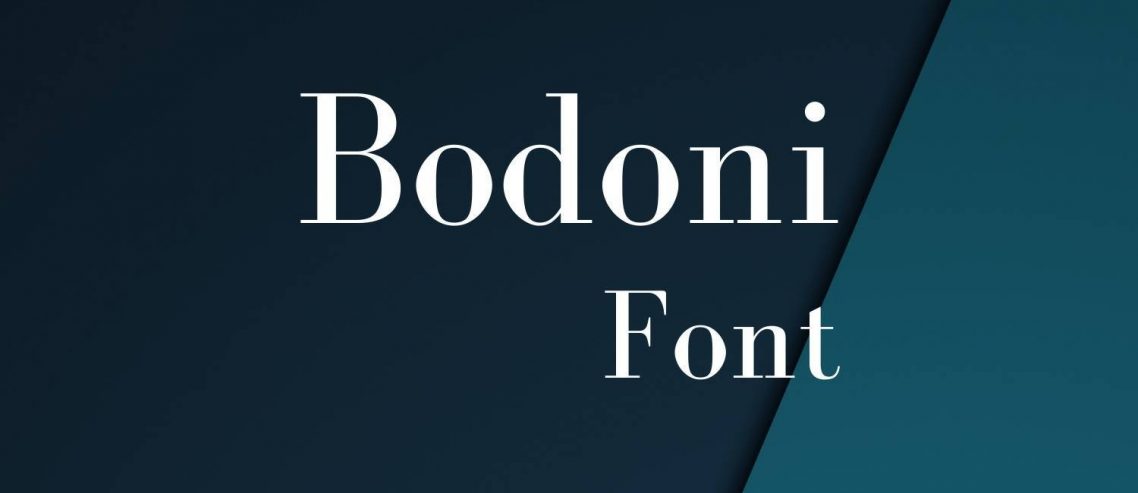
Bodoni font is a serif typeface designed by Giambattista Bodoni in 1798. It’s characterized by very high contrast between thick and thin strokes, and an overall geometric appearance. This is named after its creator, and it’s considered to be one of the first modern typefaces.
It also contains many unique features, such as small caps and old-style figures. This unique combination of features makes Bodoni an excellent choice for displays and headlines. You can pair it with sabon font.
Designer | Giambattista Bodoni |
Style | Serif |